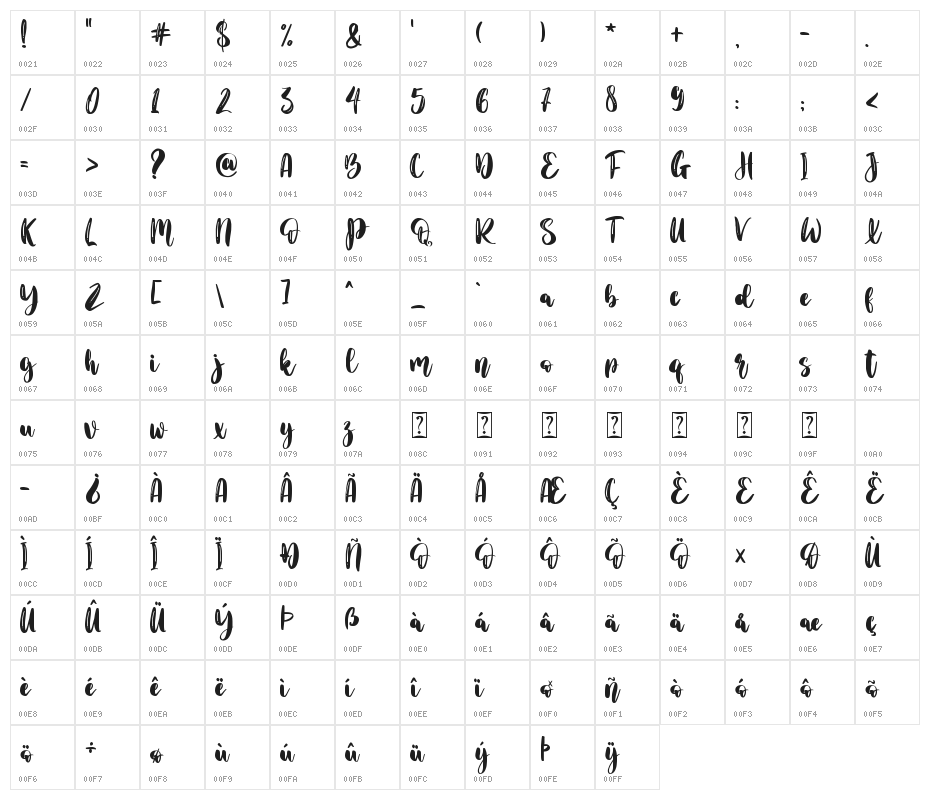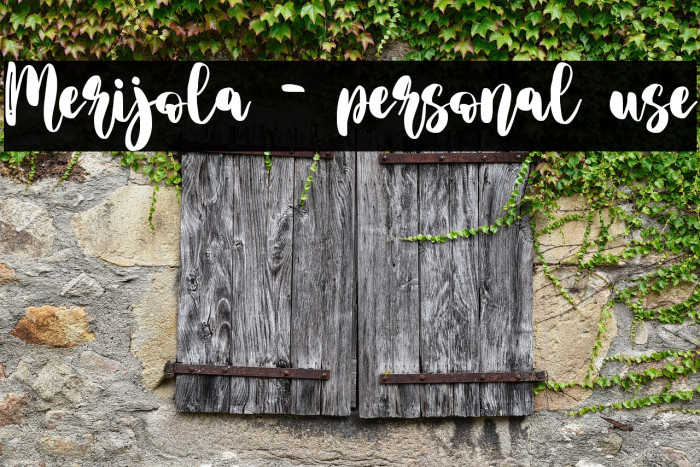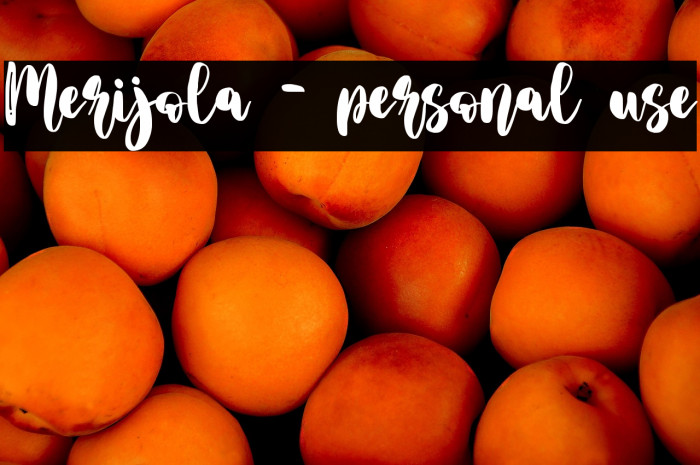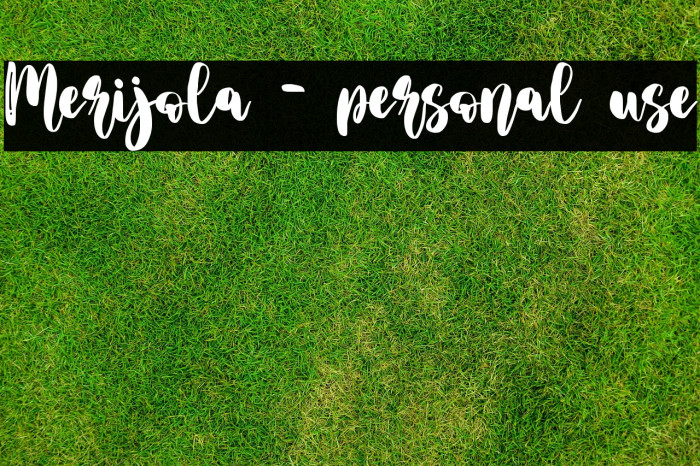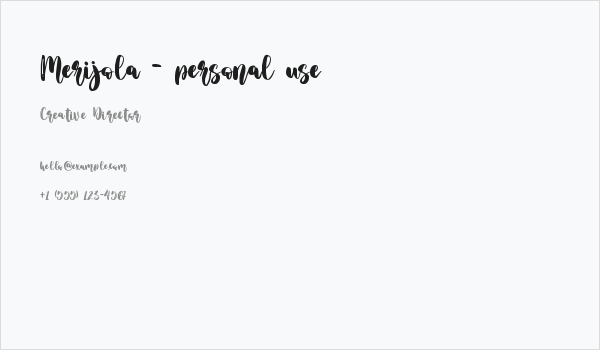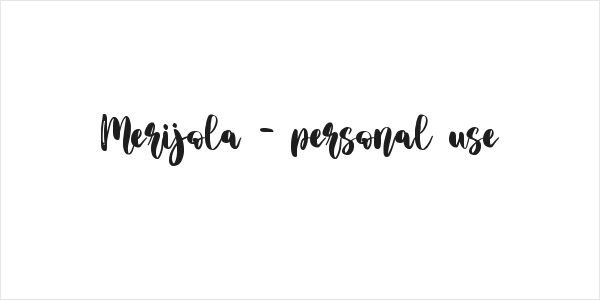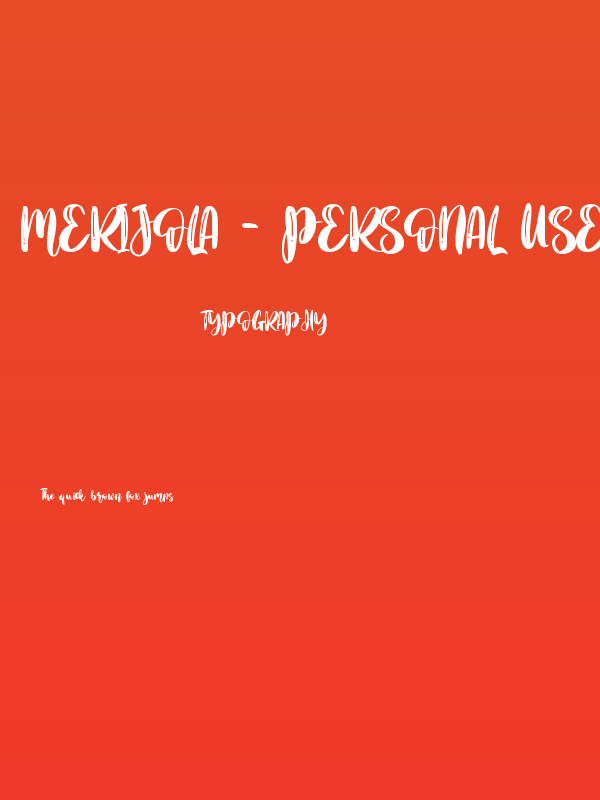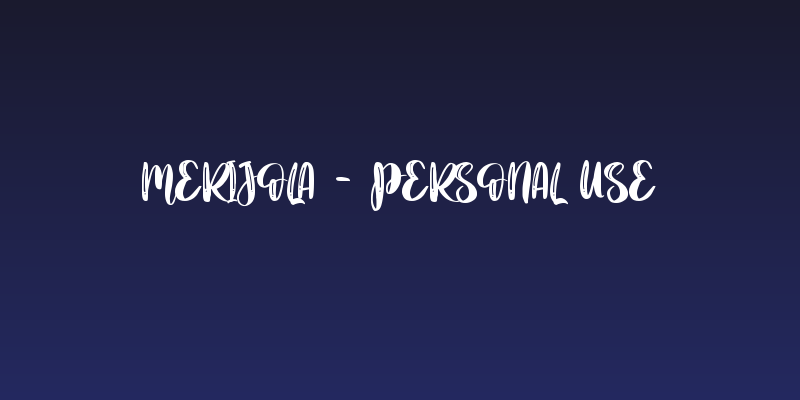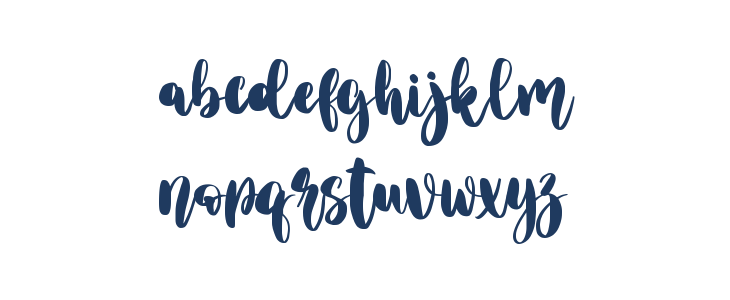
Merijola - personal use Font
Merijola - personal use Description
This font exhibits a bold and expressive handwritten style, characterized by its fluid and dynamic strokes. The letters are crafted with a sense of movement, featuring thick and thin variations that add a lively and energetic feel. The uppercase letters are particularly striking, with their tall, sweeping curves and loops, while the lowercase letters maintain a consistent flow that complements the overall design. The numerals and special characters are equally expressive, maintaining the same bold and playful aesthetic. This font is perfect for projects that require a personal and artistic touch, such as invitations, greeting cards, or branding materials.
| Proposed Projects | Ideal for invitations, greeting cards, branding, and artistic projects. |